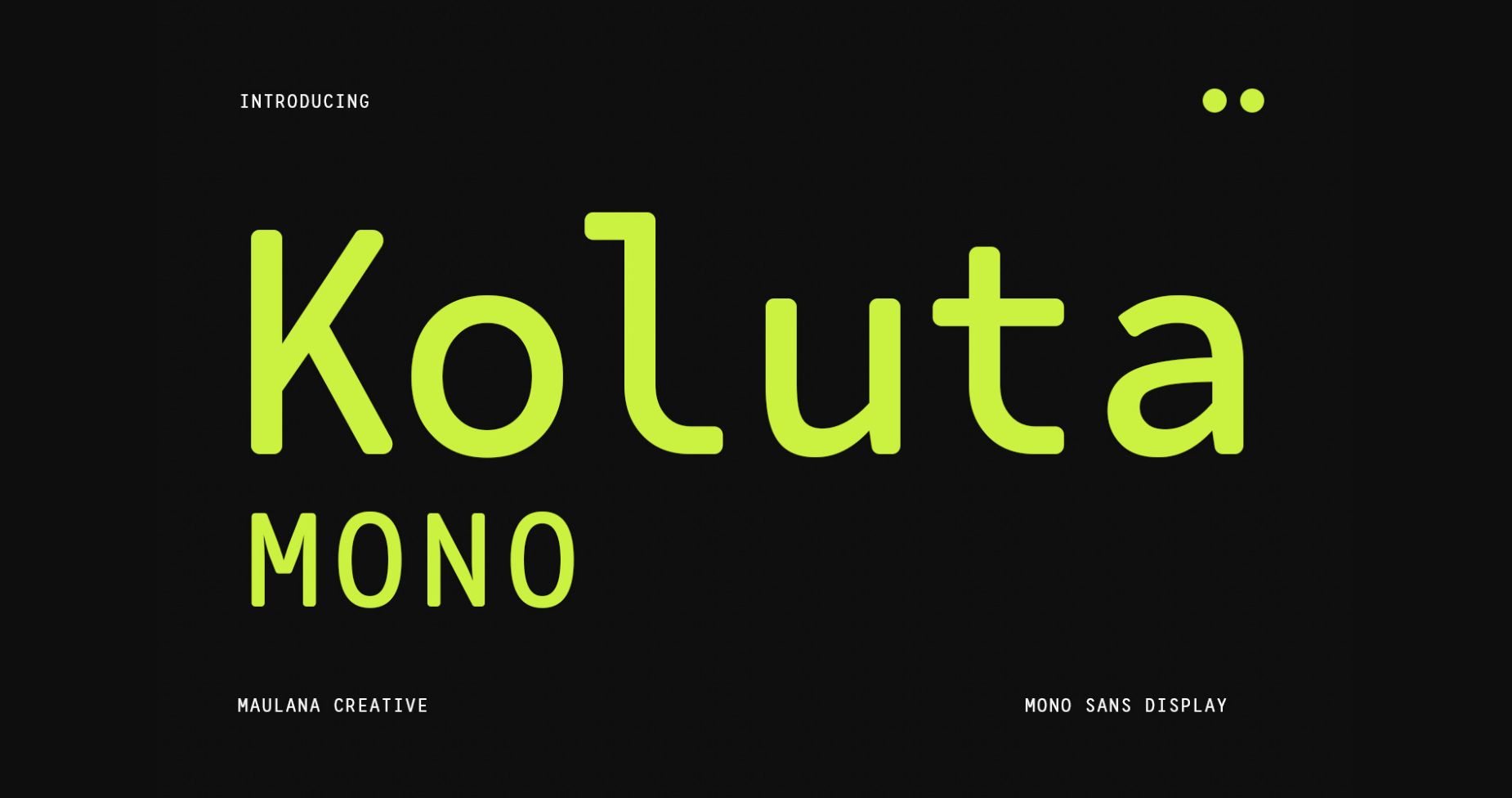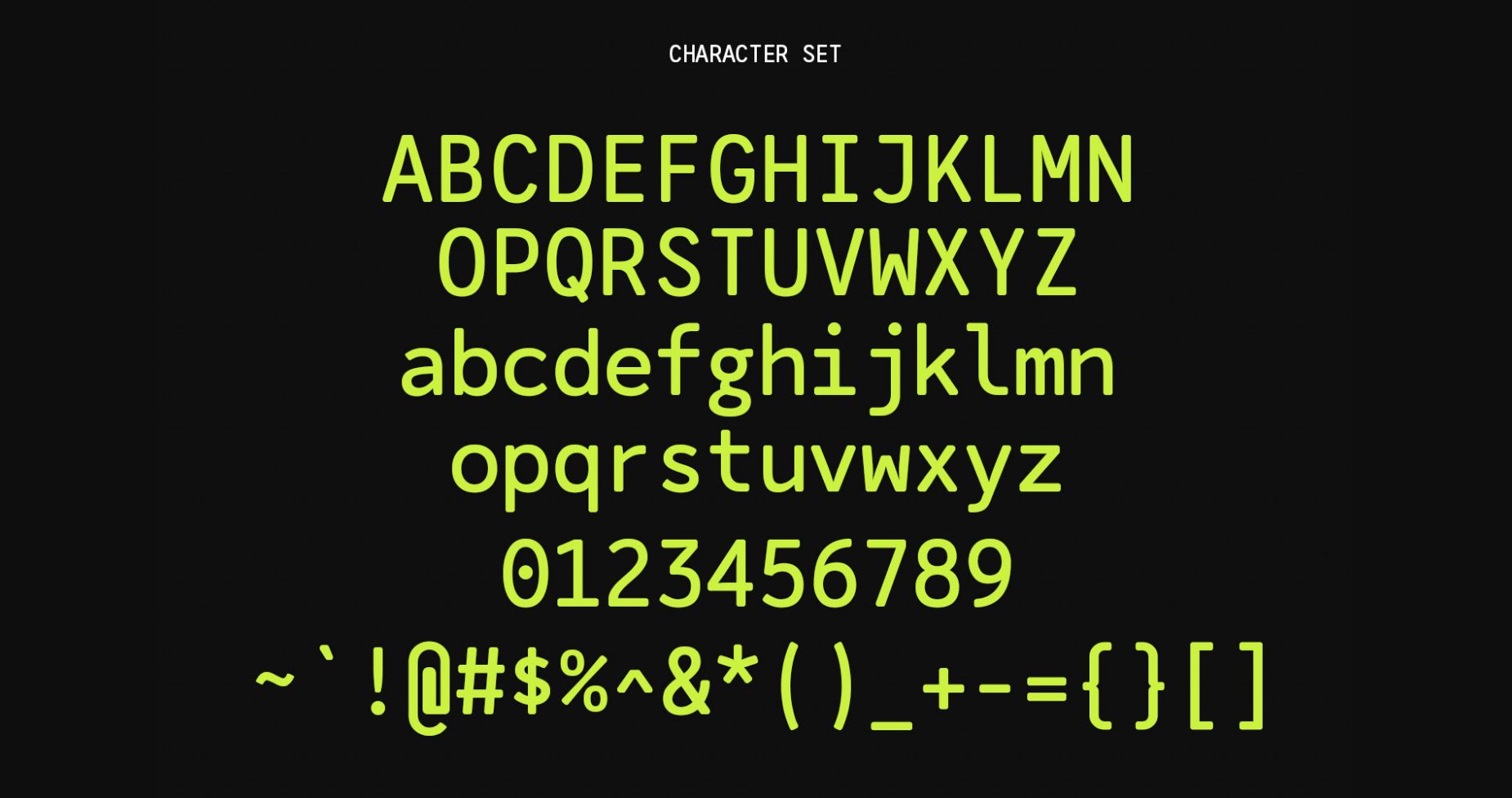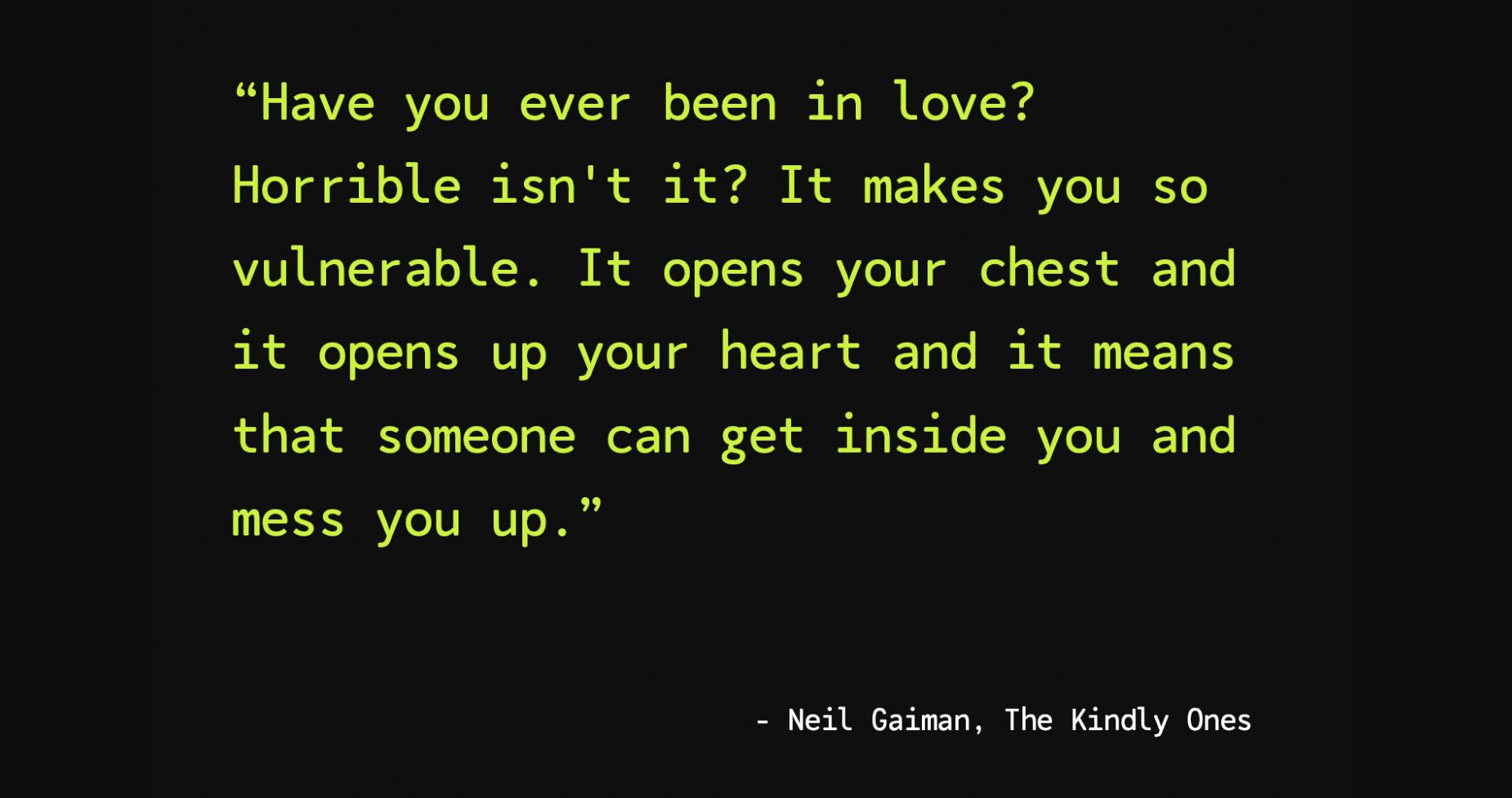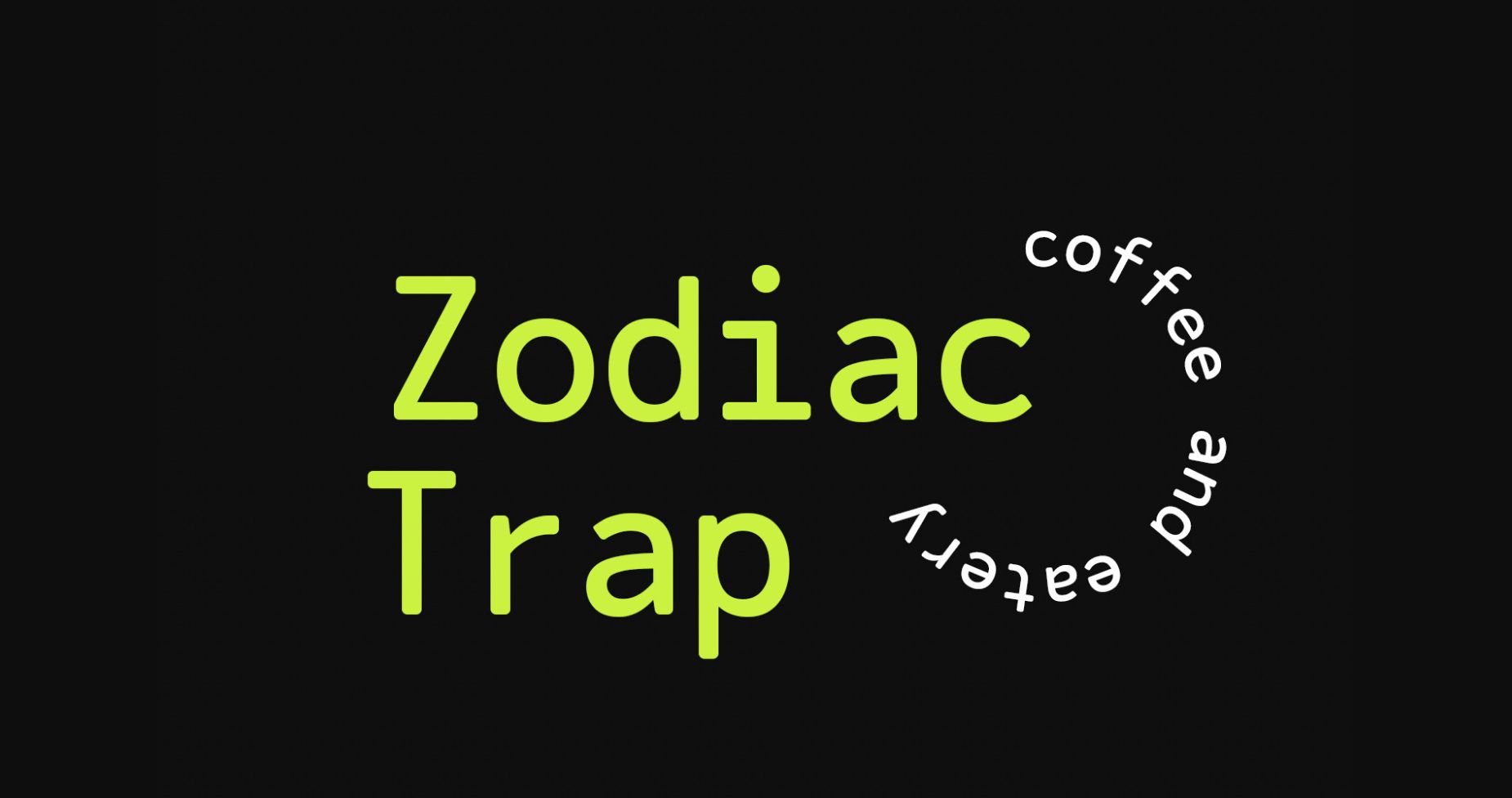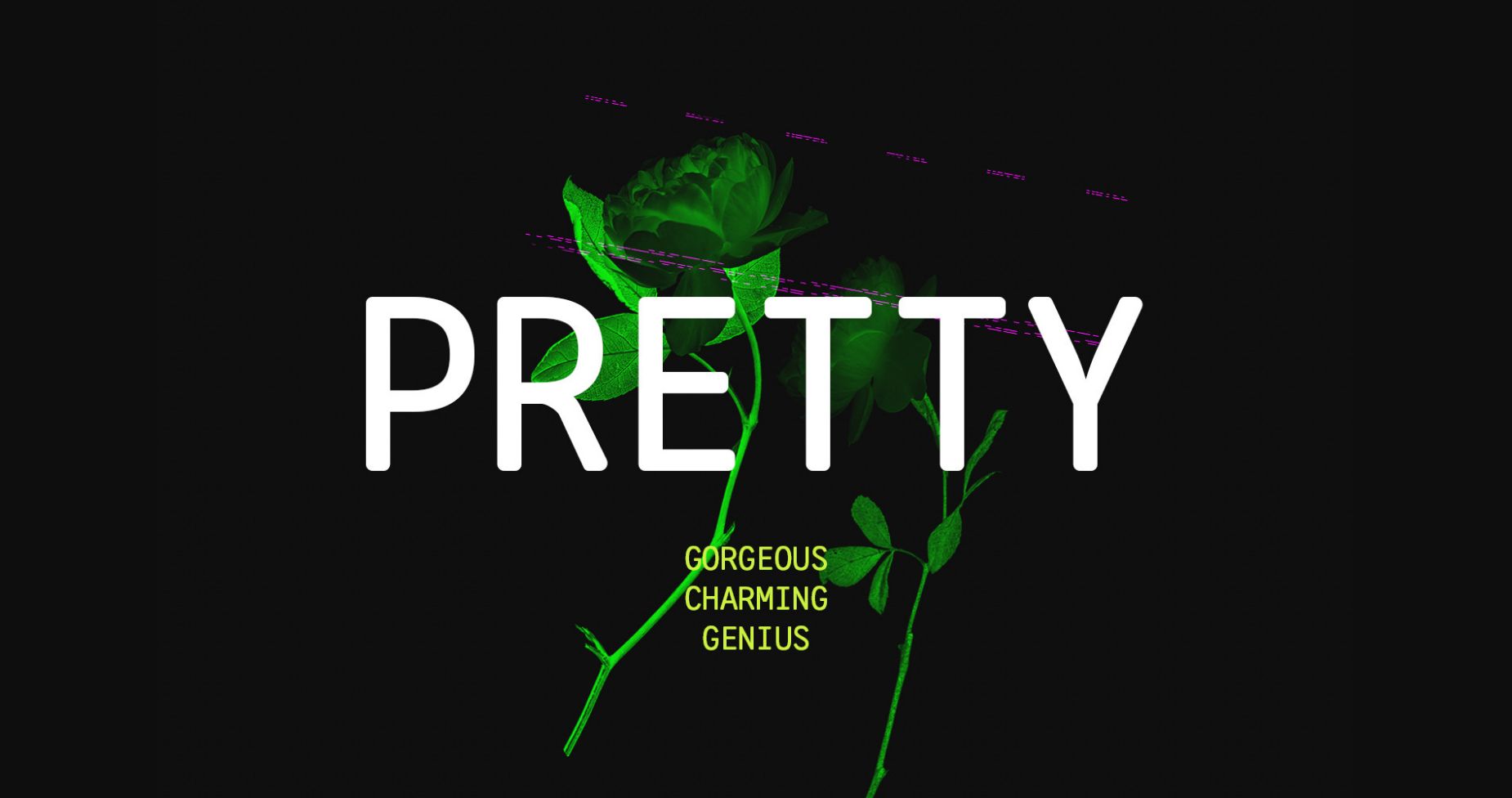
About Koluta Font
Koluta is a casual mono sans display font. Bold stroke, fun character with a bit of ligatures and alternates. To give you an extra creative work. Koluta font support multilingual more than 100+ language. This font is good for logo design, Social media, Movie Titles, Books Titles, a short text even a long text letter and good for your secondary text font with script or serif. Make a stunning work with Koluta font.